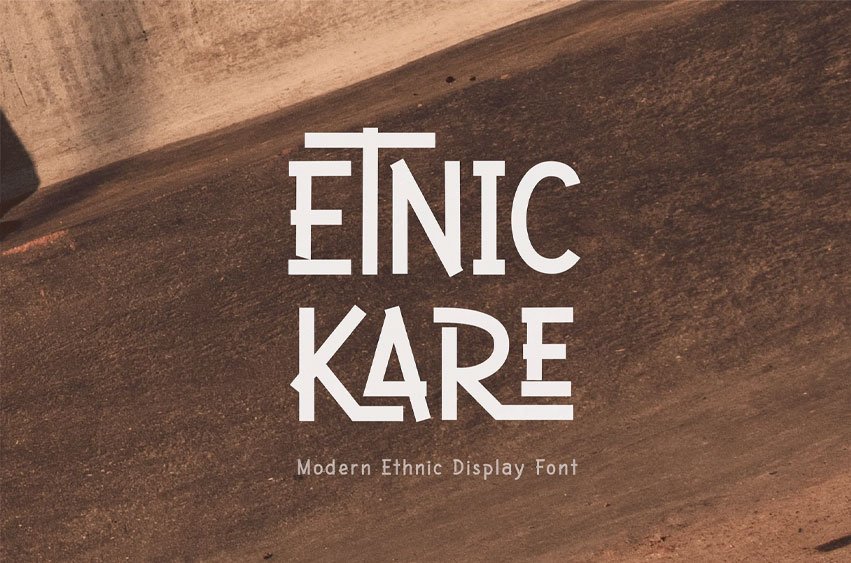
Etnic Kare Font is Crafted with high attention to detail, it gives you the best design experience
. Most suitable for poster design, headlines, quote writing, pamphlets, greeting cards, product packaging, book covers, logotypes, album covers, etc.
Modern Ethnic Display Font